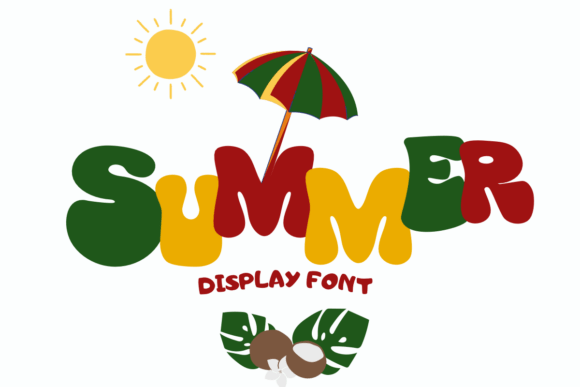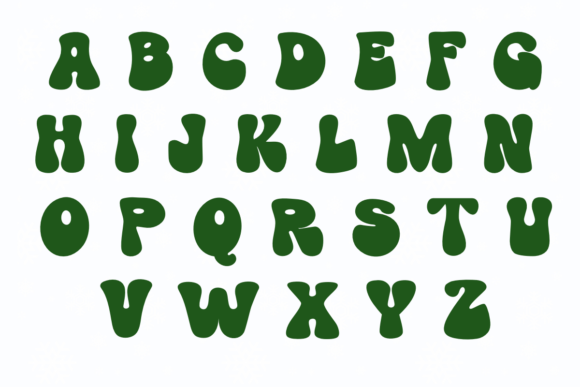
Summer Font
Bring tropical energy to your designs with Summer Display Font, a bold and fun font inspired by sunny days and beachside vibes. With chunky, cheerful letterforms in vibrant island colors, this font is perfect for summer promotions, children’s apparel, vacation posters, or playful branding.